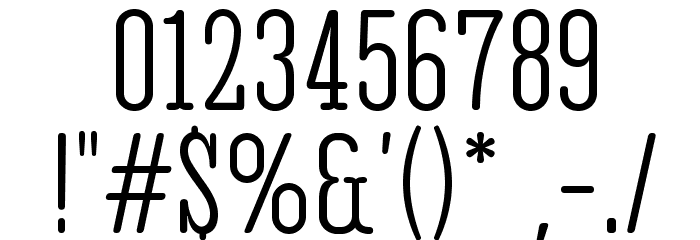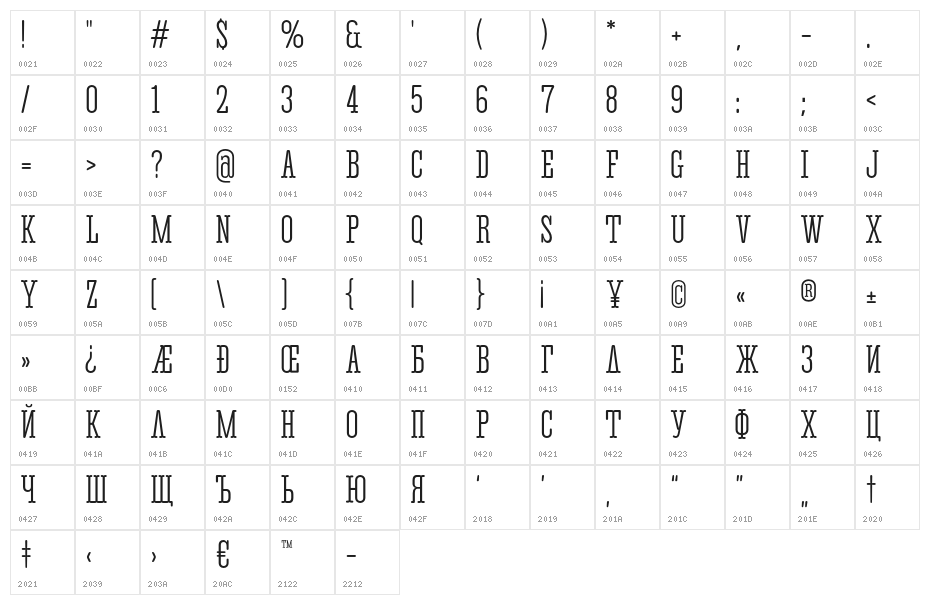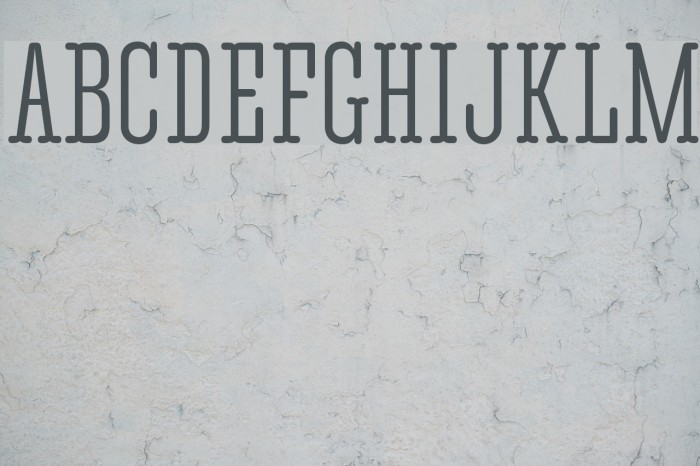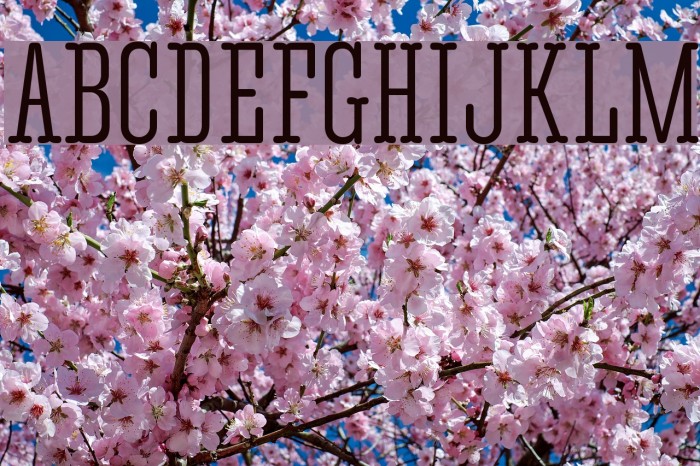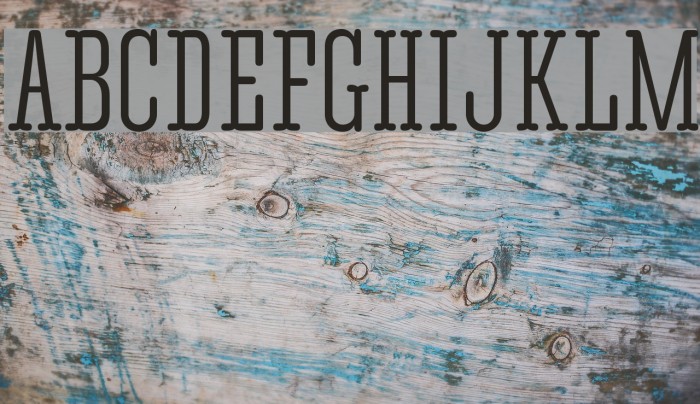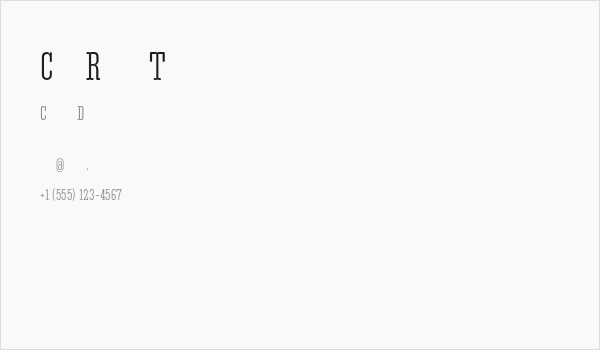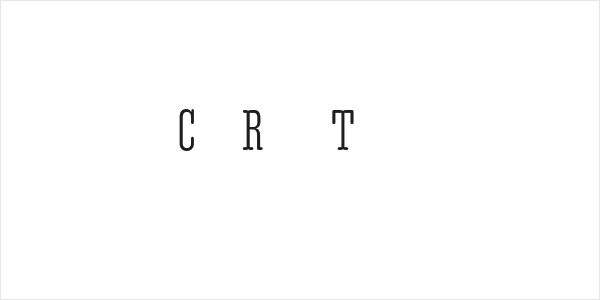
CorkiRoundedTouscan Font
CorkiRoundedTouscan Description
This font features a distinctive blend of modern and vintage aesthetics, characterized by its rounded edges and slab serif style. The uppercase letters are bold and prominent, while the lowercase letters maintain a consistent and harmonious flow. Numbers are clear and easily readable, making them suitable for various applications. The special characters are well-defined, adding versatility to the font's usage. The overall design is clean and structured, with a touch of elegance that makes it stand out in both digital and print media.
| Overall Style | Modern Vintage |
| Proposed Projects | Ideal for branding projects, logo design, headlines, and editorial layouts. |